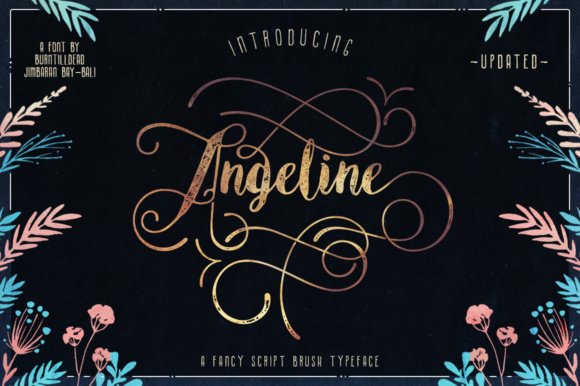
Discover the Sass and Style of Angeline Font
Have you ever been browsing through design inspiration boards, scrolling through Pinterest, and suddenly, a font catches your eye? For many designers, it’s that moment when the perfect font can make or break a project. It’s like finding the perfect match – the font that speaks to you and elevates your design to the next level.
That’s where the Angeline Font comes in – a beautiful, swashy script font that exudes tons of sass and style. Whether you’re working on a modern or vintage design, Angeline Font is the perfect addition to your typography toolkit. Its versatility makes it a valuable asset for designers looking to add a touch of elegance and sophistication to their projects.
- Unique Characteristics: Elegant script font with a vintage touch, ideal for invitations, wedding stationery, and other formal events
Angeline Font Review
I recently had the chance to work with the Angeline font, and I must say it’s a mixed bag. Let’s start with what works well:
- ✨ Elegant and sophisticated aesthetic: Angeline exudes a sense of luxury and refinement, making it perfect for high-end branding and design projects.
- ✨ Versatile font family: With multiple weights and styles available, Angeline offers a range of options to suit different design needs.
- ✨ Beautiful typography: The font’s curves and lines work together to create a visually appealing and readable typeface.
- ⚠️ Limited language support: Angeline may not be the best choice for projects that require support for non-Latin scripts or languages.
- ⚠️ Not ideal for small text: Due to its elegant design, Angeline can be difficult to read in small sizes, making it less suitable for body text.
Overall, I think Angeline is a great choice for high-end branding and design projects where a sophisticated, elegant aesthetic is a must. However, it may not be the best fit for projects that require more versatility or support for non-Latin scripts.
Tips: Use Angeline Font for elegant and sophisticated designs. It pairs well with minimalist backgrounds and bold graphics.
Tips: Use Angeline Font for high-end designs that require a touch of sophistication. It pairs well with clean and modern graphics.
Tips: Use Angeline Font for professional presentations and documents that require a touch of elegance. It pairs well with simple backgrounds and bold graphics.
Comparison to Angeline Font: Great Vibes is more playful and has a more fluid feel compared to Angeline Font’s more refined and classic style.
Comparison to Angeline Font: Playfair Display has a more ornate and sophisticated feel compared to Angeline Font’s simpler and more versatile style.
Comparison to Angeline Font: Carolyna Pro has a more feminine and whimsical feel compared to Angeline Font’s more classic and timeless style.
Comparison to Angeline Font: Ostrich Sans has a more modern and edgy feel compared to Angeline Font’s more classic and elegant style.